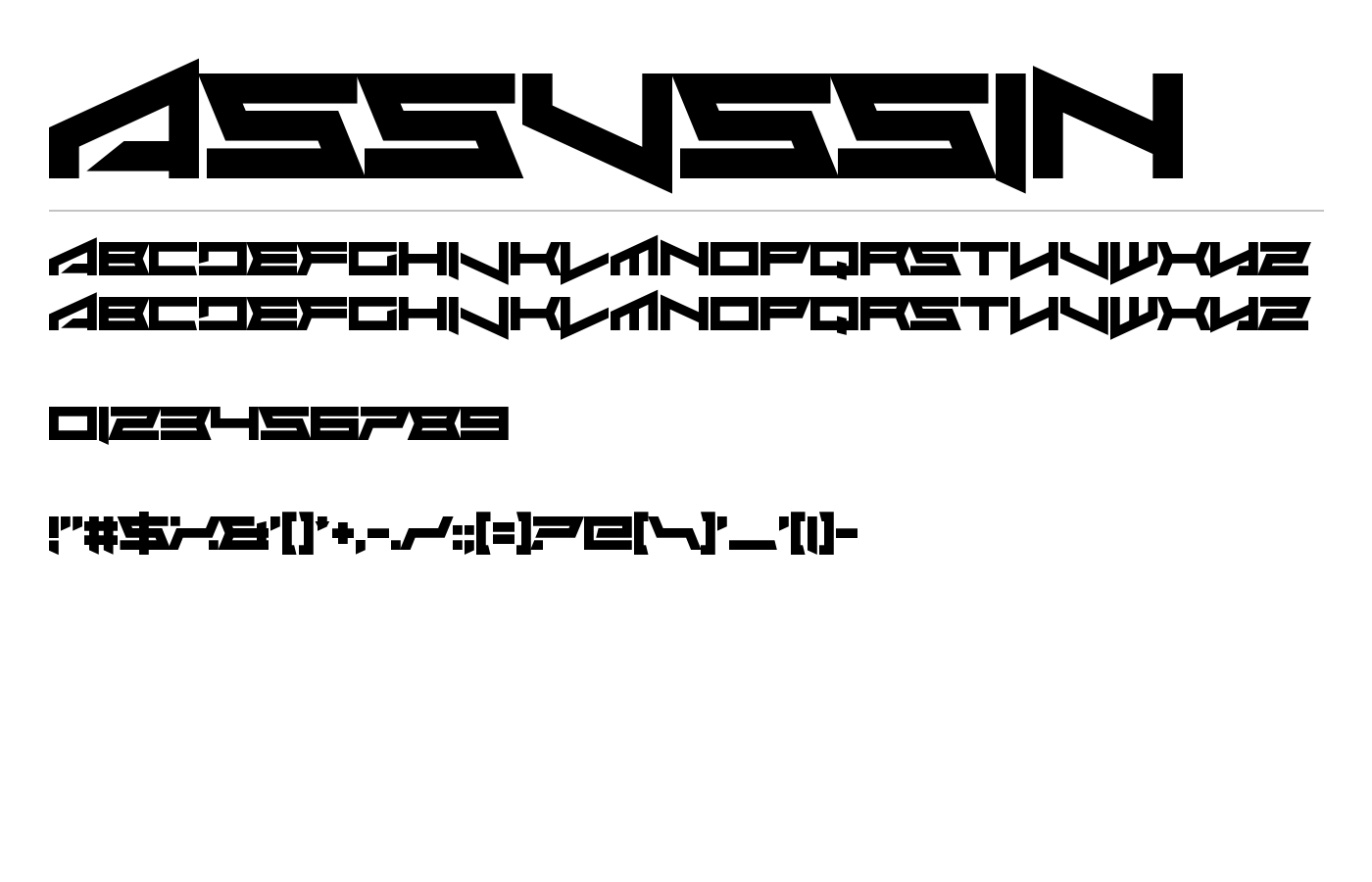
Assvssin is a bold, geometric sans serif font characterized by sharp angles and a futuristic, techno-inspired style. Its condensed letterforms have a strong presence and high contrast between thick strokes and sharp edges, making it perfect for dynamic headlines, logos, and branding that seek an edgy, modern feel. This font excels in designs aiming for a bold, intense vibe, such as gaming, tech, or sci-fi themes.
Assvssin Font
About Assvssin Font